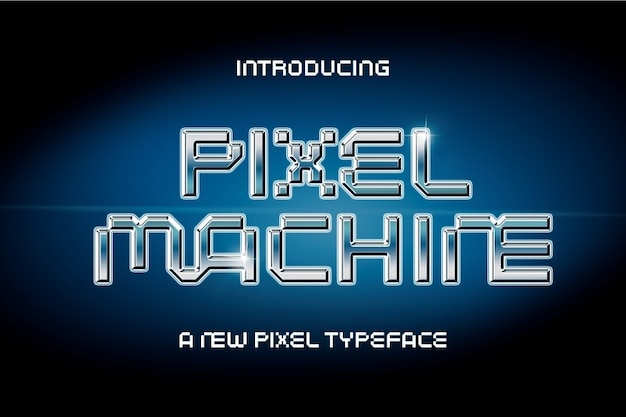
Pixel Machine
Pixel Machine Font
It's like taking a trip back to the retro pixel era! Each letter's a metal marvel, crafted in old-school video game style. It's like typing on a pixelated robot—edgy, metallic, and full of nostalgia. Perfect for projects craving that throwback vibe, this font revives the glory days of pixelated awesomeness!